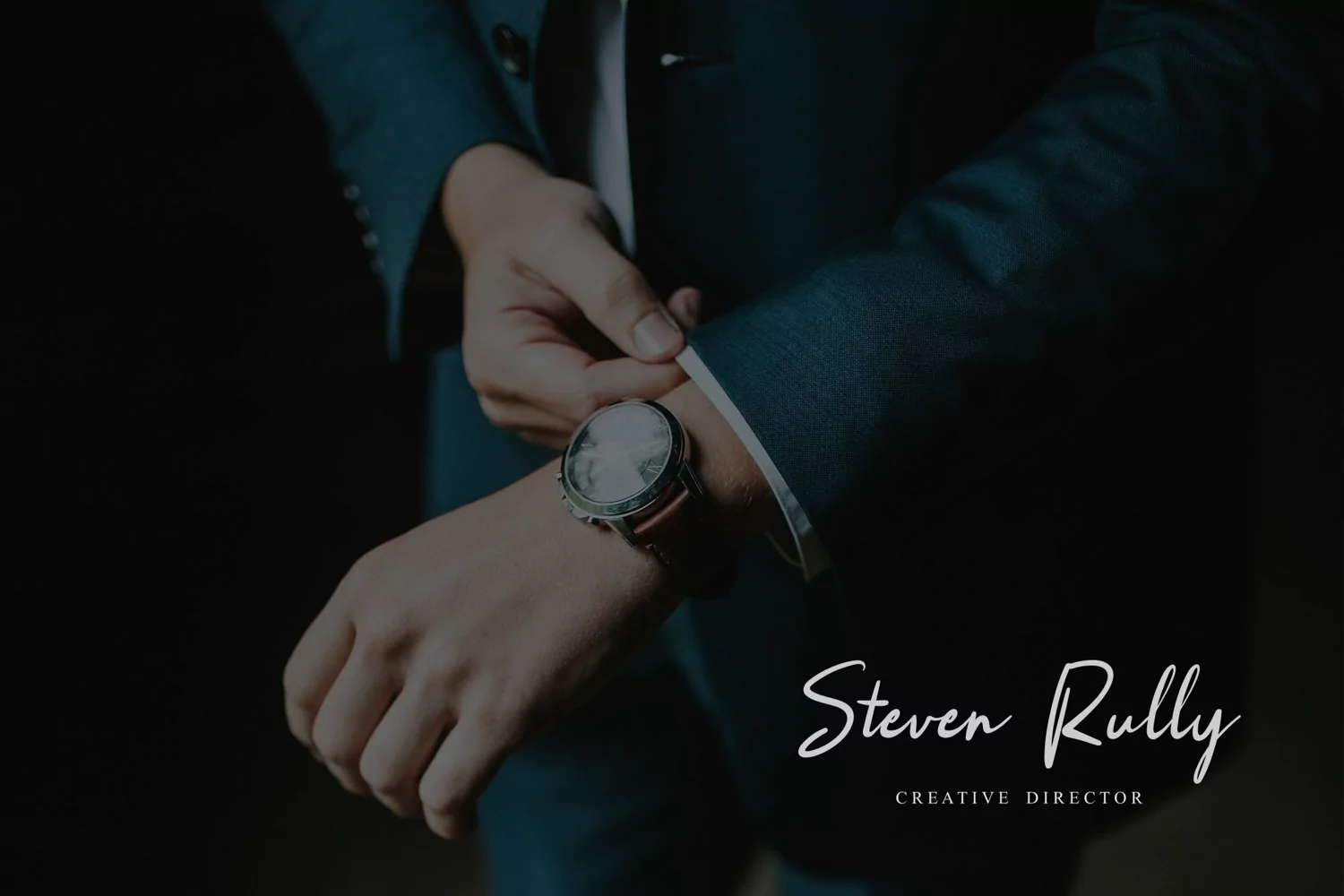
Rotterdam + Oblique Version
We make this font look beautiful and elegant. The bends look gorgeous, especially if these fonts are used in your design project. it's perfect for logos, name card, magazine layouts, invitations, headers, or even large-scale artwork.
• Punctuation and Number
• Multilingual Language
• Multilingual Ligature